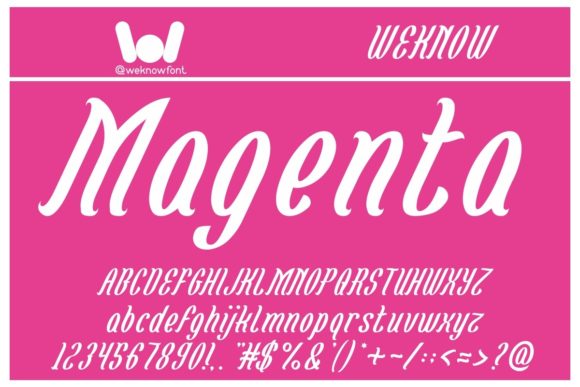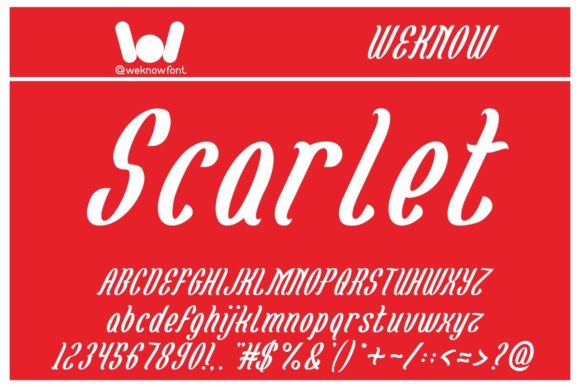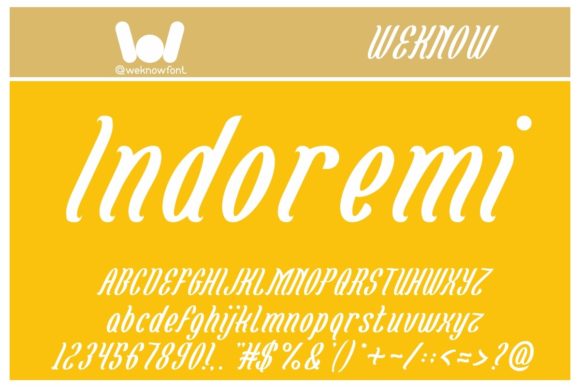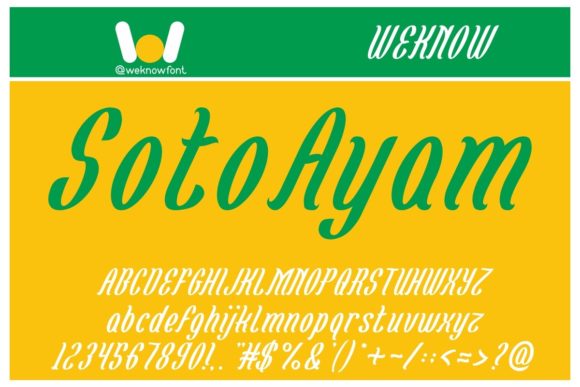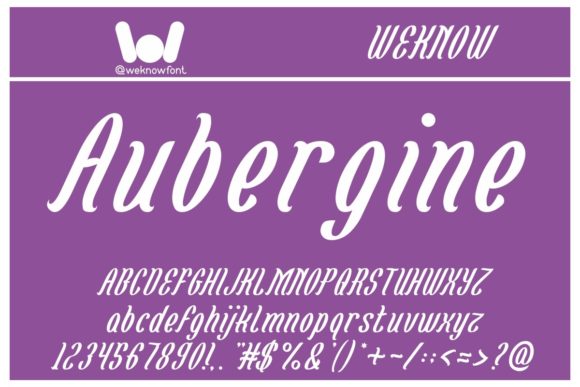
Magenta Flower
Magenta Flower: A Fancy and Versatile Slab Serif Font
Magenta Flower is a distinctive slab serif font that combines fanciness with versatility. This stylish typeface is designed to enhance a wide range of creative projects, making it a valuable addition to any designer’s toolkit.
Key Features of Magenta Flower
• Fancy Design: Offers elegant and decorative letterforms that add sophistication to designs.
• Slab Serif Structure: Incorporates the characteristic thick, rectangular serifs typical of slab serif fonts.
• Versatile Application: Suitable for a wide range of projects, from logos to website designs.
• Eye-Catching Details: Unique characteristics that make designs stand out with a fancy flair.
• Multi-Purpose Use: Adaptable for various media, including print and digital platforms.
Ideal Uses for Magenta Flower
Magenta Flower’s unique characteristics make it particularly well-suited for:
• Logos and logotypes
• Headlines and titles
• Corporate and brand identity
• Apparel industry designs
• Posters and promotional materials
• Music and movie graphics
• Game design elements
• Magazine and book covers
• Comic and cartoon titles
• Social media content (YouTube, Instagram)
• Website headers and digital content
When incorporating Magenta Flower into your designs, consider these tips:
• Use for headlines or short blocks of text to showcase its fancy and stylish character
• Experiment with different sizes to highlight the font’s unique details
• Take advantage of its versatility across various creative projects
Magenta Flower is an excellent choice for designers looking to add a fancy and versatile slab serif font to their typographic toolkit. Its ability to enhance various design projects with a touch of elegance makes it stand out in the world of typography. Whether you’re working on logo designs for sophisticated brands, creating layouts for magazines, or developing content for digital platforms, Magenta Flower offers the perfect blend of style and adaptability.
Furthermore, Magenta Flower’s versatility allows it to shine in various contexts. From vintage-inspired designs with a modern twist to more playful layouts that need a touch of sophistication, this font can elevate your projects. Its fancy style works particularly well in designs that require a thoughtful and refined mood.
In conclusion, Magenta Flower is a font that truly lives up to its name, offering a vibrant and eye-catching presence in any design. Its ability to work well in both elegant, minimalist projects and more elaborate layouts showcases its flexibility. For those looking to add a touch of fancy style with a timeless feel, Magenta Flower can even enhance themed creations with its unique, sophisticated twist.